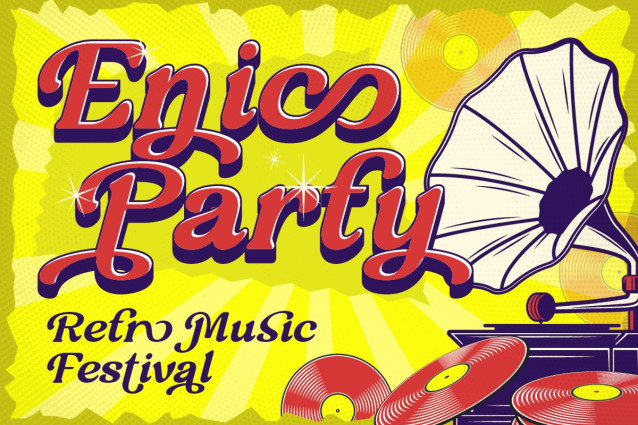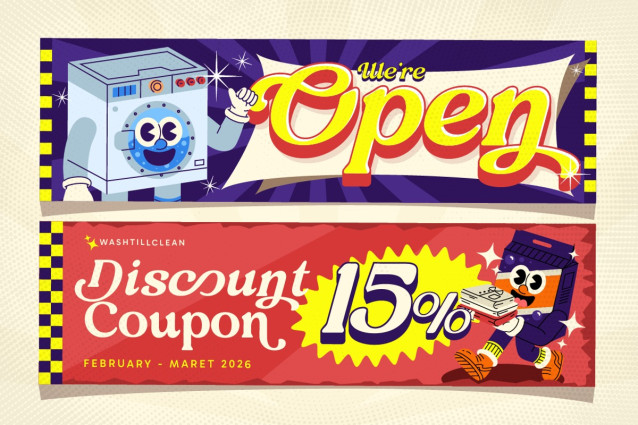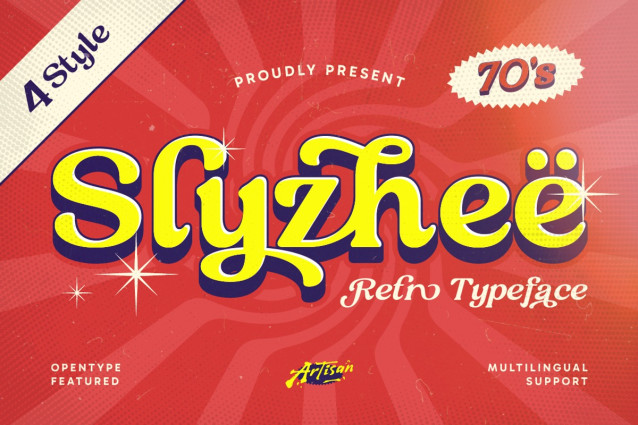
Slyzhee Font
Slyzhee Font is a bold retro typeface inspired by classic 70’s lettering style.
It features playful curves, thick strokes, and eye-catching shapes that instantly bring a vintage and groovy vibe. This font comes with 4 styles, giving you flexibility to create unique looks from flat retro designs to bold 3D effects. Slyzheë is perfect for posters, logos, packaging, branding, album covers, and retro-themed designs.